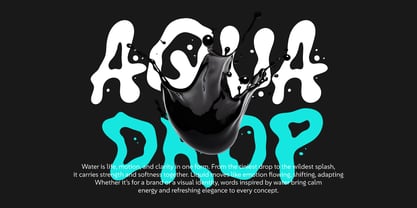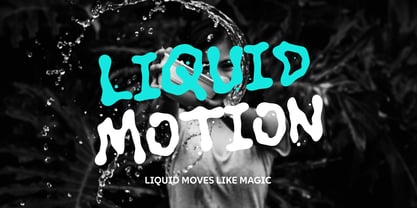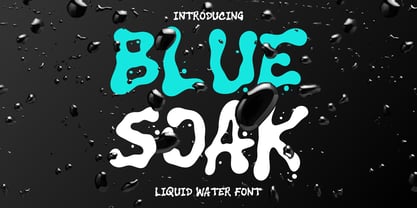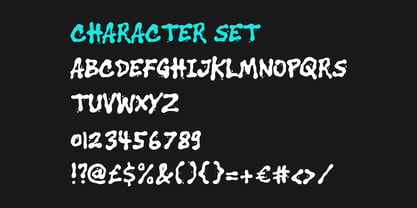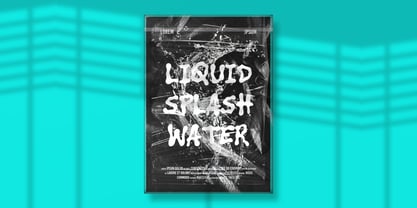
Blue Soak
by Shanaf
The Blue Soak Font Family was designed by Yesie Erma Yunita and published by Shanaf. Blue Soak contains 1 styles.
Blue Soak Display Water Font is a creative typeface that captures the essence of water in motion. Its bold, fluid characters mimic the organic flow of drops and splashes, giving every word a sense of movement and life. Each letter feels hand-formed from liquid, blending playful irregularities with a strong, readable structure. The font combines fun, expressive design with a natural flow, making it ideal for projects that require energy and creativity. The watery texture of the shapes creates a dynamic visual rhythm, perfect for drawing attention in bold headlines.
This font is versatile for multiple design needs, from branding to playful event posters. Its fluid style enhances packaging, greeting cards, and even magazine covers that need a splash of originality. For film titles, stickers, or digital campaigns, Blue Soak brings a unique identity inspired by water’s clarity and energy. Its bold character set and creative layout options make it easy to adapt to different themes. Whether used for logos or bold headlines, it always adds a refreshing, memorable touch.